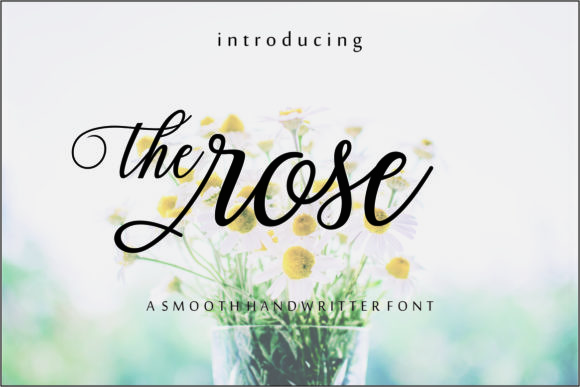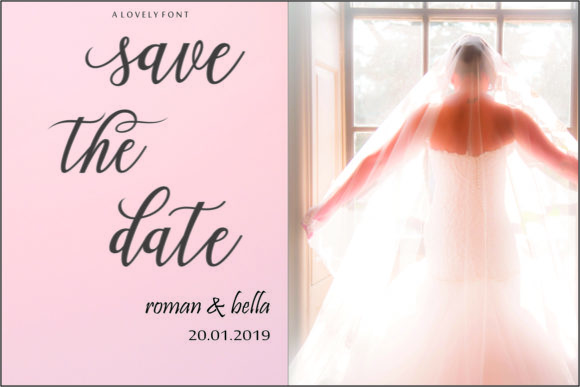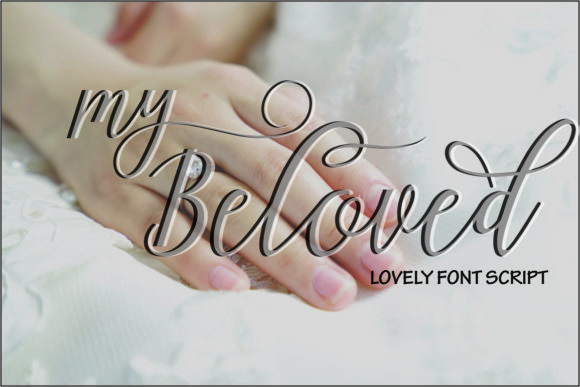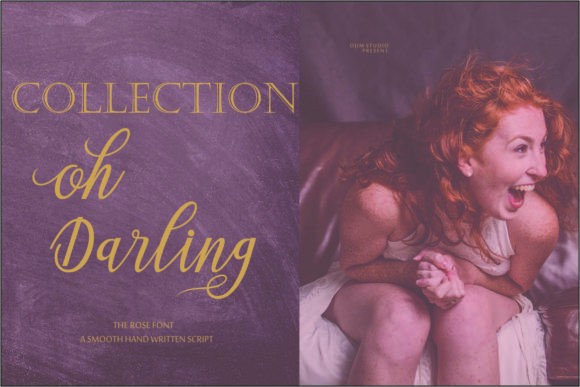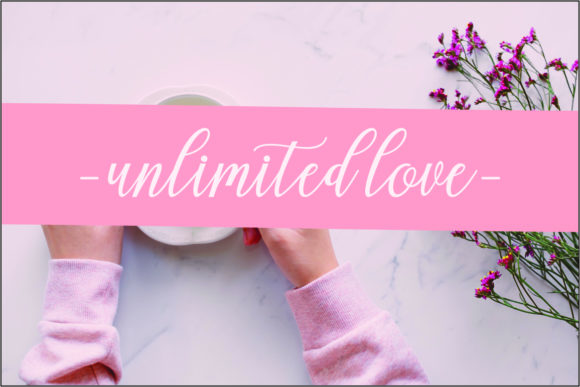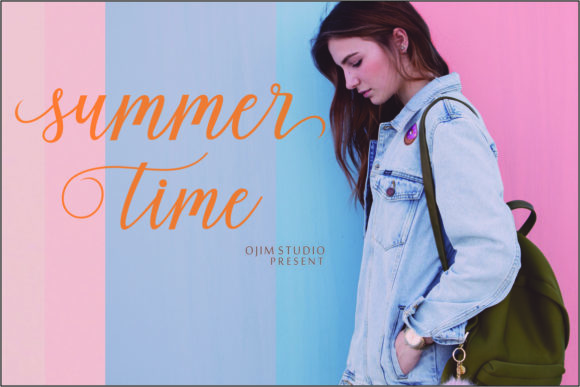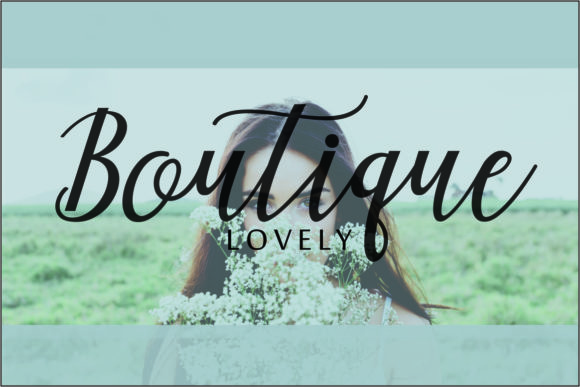
The Rose Script Font
About The Rose Script Font
The Rose is a smooth handwritten font. Every letter has been carefully crafted to give your design an elegant feel.
It’s perfect for weddings, invitations, greeting cards, posters, business cards, quotes, blog headers, branding, logos, and every other design which needs an luxurious feel.